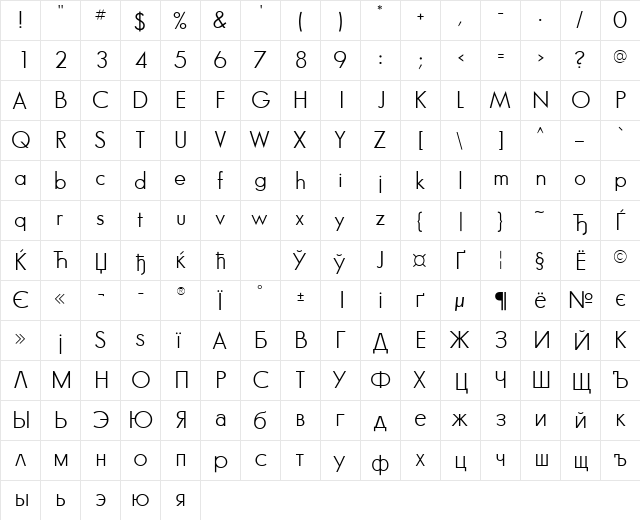
Glasnost Light
Design Context for Glasnost Typeface
Glasnost takes a measured approach to typography — its balanced proportions and neutral character make it a reliable workhorse for both digital and print work. The delicate stroke weight brings airiness and refinement to layouts.